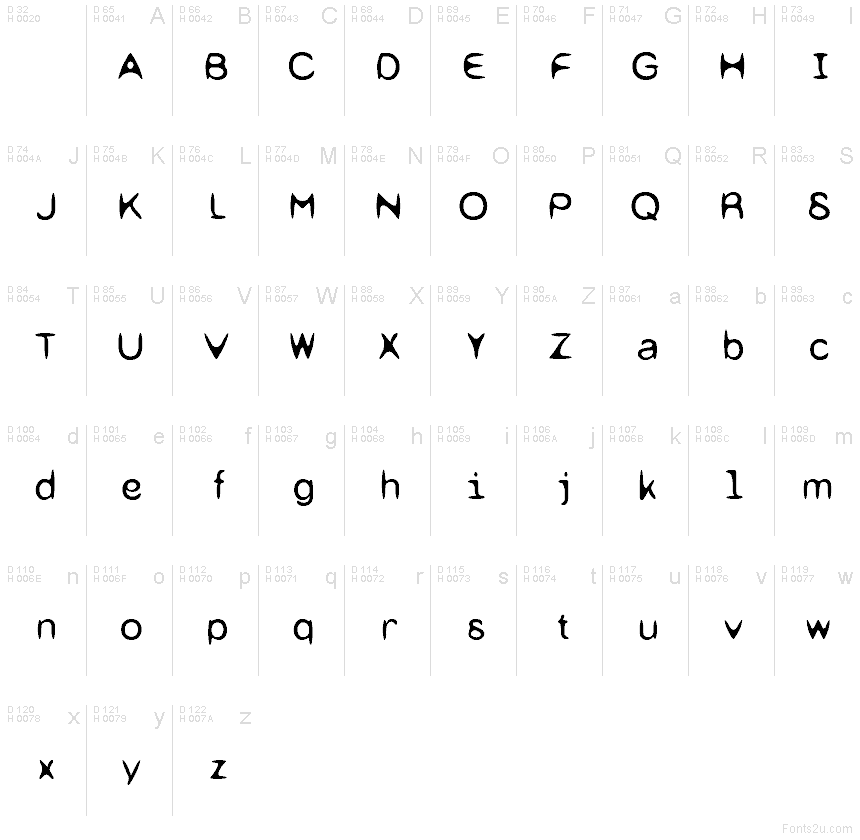
CSGhitaMonoDrawn-Regular Demo
CS Ghita Mono Drawn font by Craft Supply Co. is a free regular distorted monospaced display font, a standout style from the CS Ghita family. Built around a rare mix of strict mono rhythm and hand-drawn wobble, it lays down inky, slightly smudged strokes with soft, rounded edges and playful inconsistencies. The result feels like a rubber-stamped typewriter—orderly columns with human shake—great when you need character without losing alignment.
This free font shines on zines, glitchy posters, indie game menus, tech-art branding, craft packaging, album covers, and editorial title pages. Using CS Ghita Mono Drawn at larger sizes lets the grain and sway read clearly; add a touch of tracking for air. Pair with a clean neo-grotesk for body copy to keep the texture in check.